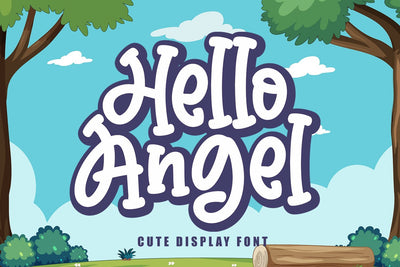
Hello Angel - Kids Font
Hello Angel is a fun and whimsical paint brushed display font.
This font is perfect for children themed designs, especially when combined with bright colors.